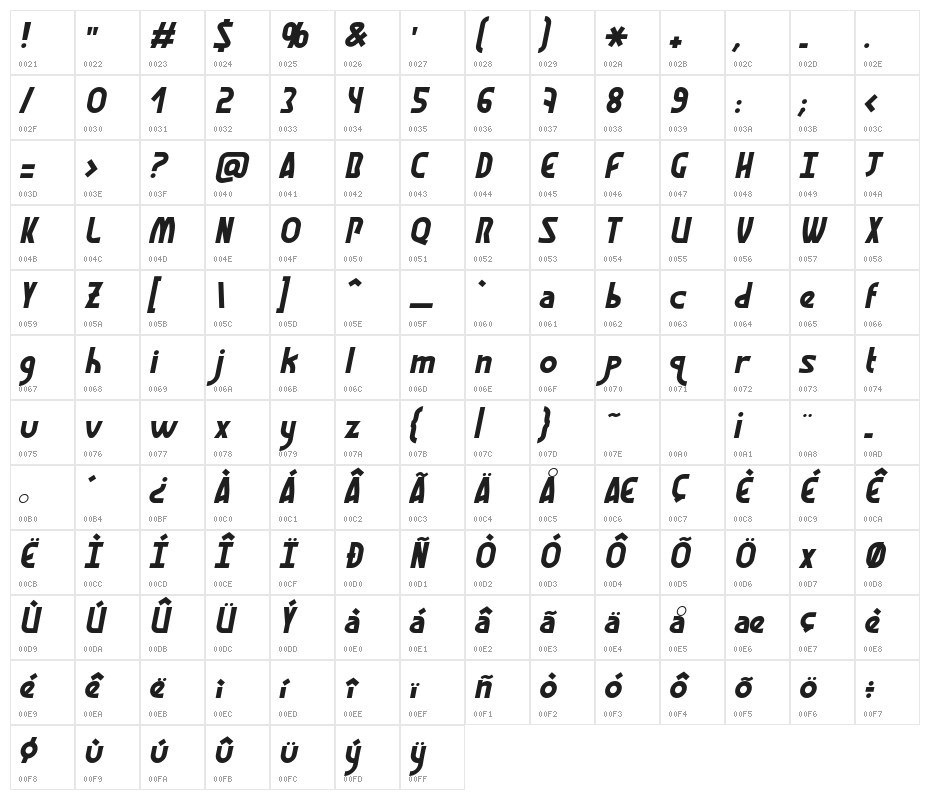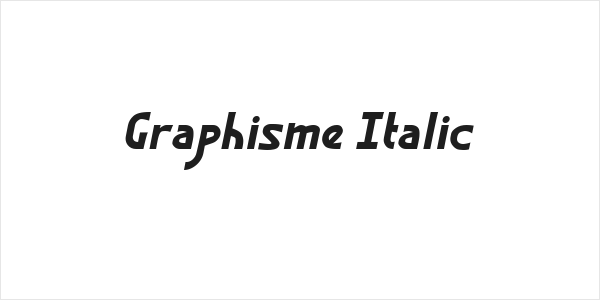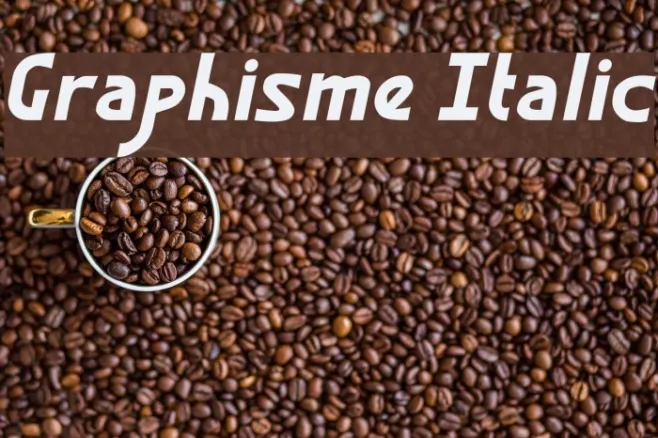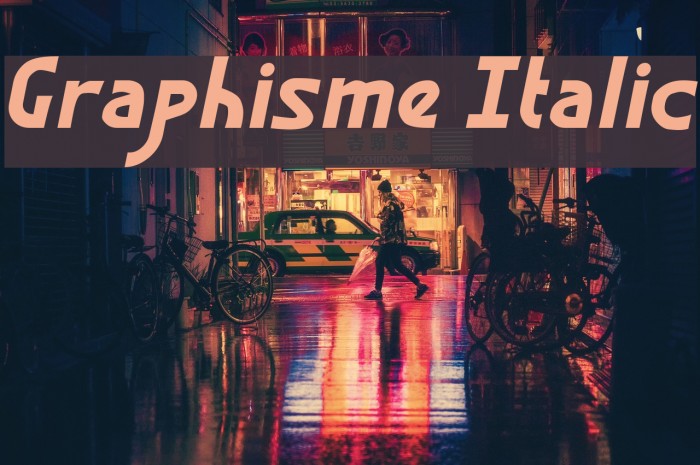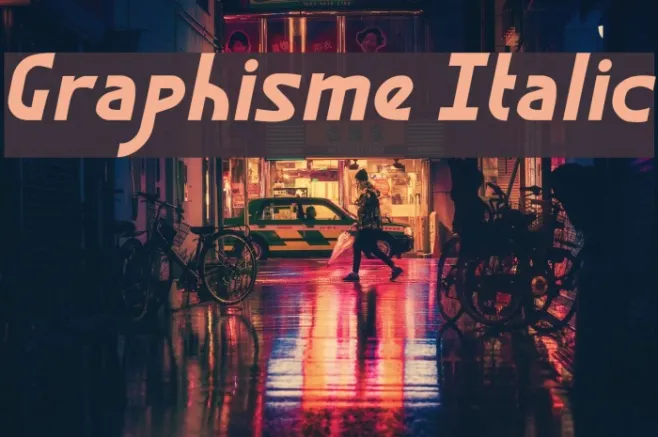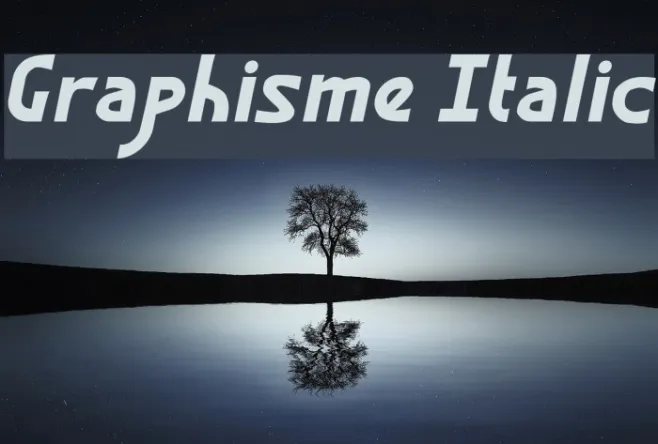
Graphisme Italic Font
Graphisme Italic Description
This font features a dynamic and modern italic style with a distinct slant that adds a sense of motion and energy. The characters are bold and slightly condensed, giving them a strong presence on the page. The strokes are consistent in thickness, providing a uniform appearance across all characters. The uppercase letters are tall and commanding, while the lowercase letters maintain a playful yet structured form. The numerals are clear and legible, matching the overall boldness of the alphabet. Special characters are designed to integrate seamlessly with the rest of the typeface, maintaining the same bold and italicized characteristics. This font is well-suited for projects that require a modern and energetic feel, such as branding, advertising, and editorial design.
| Proposed Projects | Ideal for branding, advertising, editorial design, and any project needing a modern, energetic typeface. |